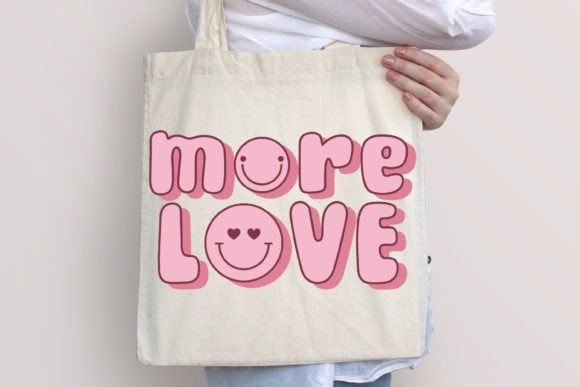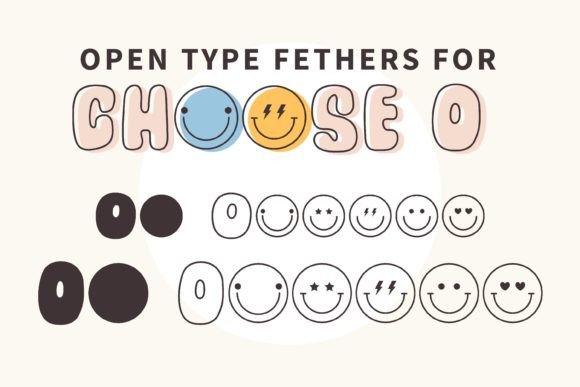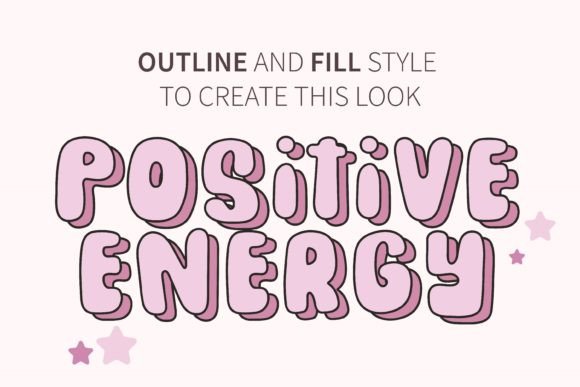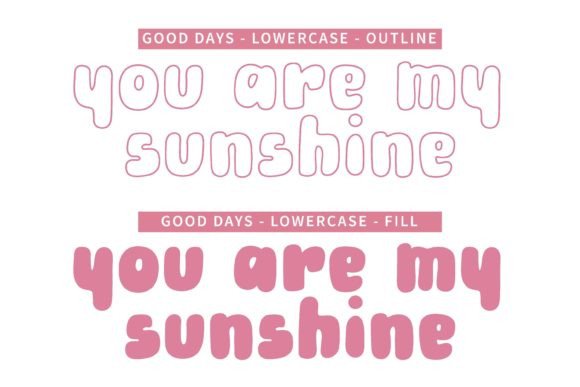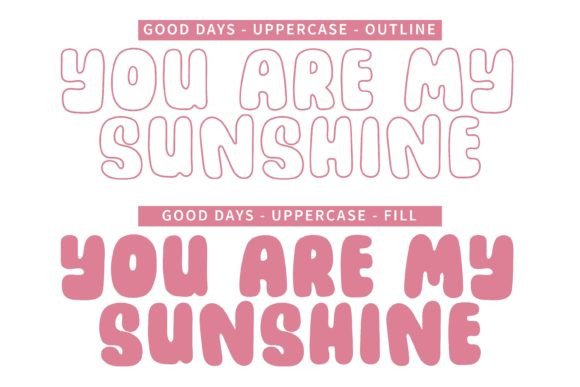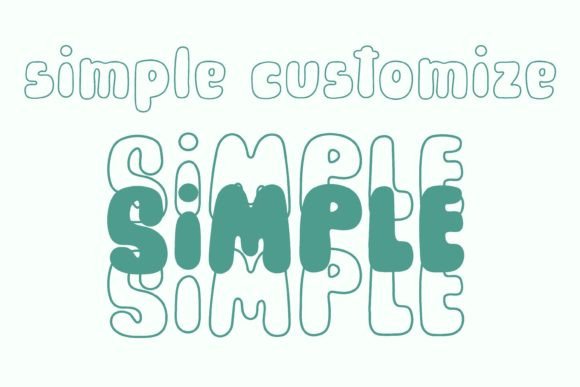
The Groovy Good Days Font: A Retro Revival for Your Designs
I’ll never forget the time I was working on a project for a client who wanted a font that screamed “retro hippie vibes.” I scoured the internet, tried countless fonts, but nothing seemed quite right. That was until I stumbled upon the Good Days font. It was like a ray of sunshine – perfect for adding a groovy touch to any design. In this article, I’ll share my experience with Good Days, a retro and fun, layered display font that’s perfect for hippie designs.
An Honest Review of Good Days Font
- ✨ Unique Layered Style: Good Days has a distinctive layered look that adds depth and visual interest to any design.
- ✅ Easy to Read: Despite its playful nature, the font remains clear and readable, even at smaller sizes.
- 🎨 Versatile: The font comes with various OpenType features, glyphs, and stylistic alternates, making it perfect for a wide range of creative projects.
While Good Days is an amazing font, it’s not without its quirks. Here are a few things to keep in mind:
- 🤔 Limited Use in Body Text: Due to its decorative nature, Good Days might not be the best choice for body text. It’s better suited for headings and titles.
- ⚠️ Some Characters May Not Layer: Occasionally, certain character combinations might not layer as expected. Be sure to experiment and adjust accordingly.
The Backstory of Good Days Font
Good Days was designed by a team of creatives who wanted to capture the carefree spirit of the 1960s and 1970s. Inspired by vintage posters, psychedelic art, and classic rock typography, they crafted a font that’s equal parts nostalgic and modern.
Q: What type of designs is Good Days best suited for?
A: Good Days is perfect for designs that require a retro, hippie vibe, such as posters, flyers, and social media graphics.